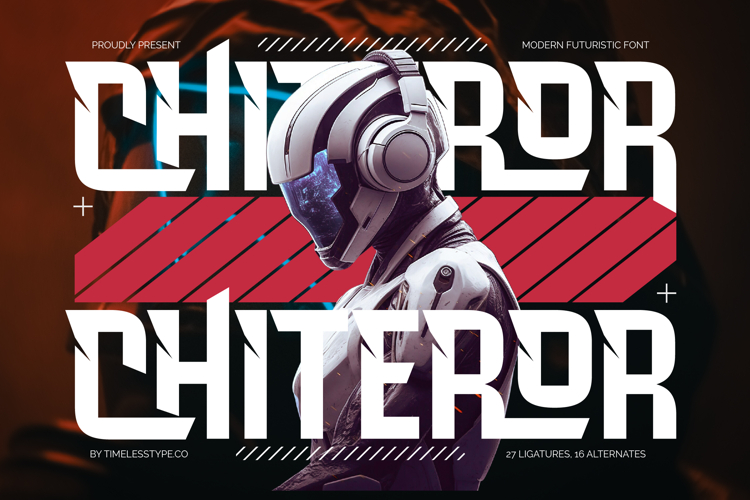
Chiteror - Modern Futuristic Font
Unleash a new era of visual communication with Chiteror - Modern Futuristic Font, a typeface engineered for maximum impact. Its striking uppercase forms and dynamic, angular cuts command attention, delivering a truly cutting-edge aesthetic. Perfect for projects demanding a bold statement, this font effortlessly merges sleek modernism with a powerful, forward-thinking presence, ideal for creating memorable visual identities.
Experience unparalleled creative freedom with Chiteror - Modern Futuristic Font, a masterclass in distinctive typography. Each character is meticulously crafted with sharp geometry, ensuring your designs stand out with a truly unique flair. Enhanced by its rich set of 27 ligatures and 16 alternates, it offers extensive options to forge compelling and original layouts, making it exceptionally versatile for impactful headlines and sophisticated branding.
With its extensive multilingual support, Chiteror - Modern Futuristic Font adapts seamlessly across global markets, making it incredibly versatile for international projects. This font is perfect for gaming titles, tech branding, sci-fi movie posters, automotive design, and any application requiring a high-contrast, futuristic visual identity that resonates worldwide. Its strong lines convey innovation and precision.